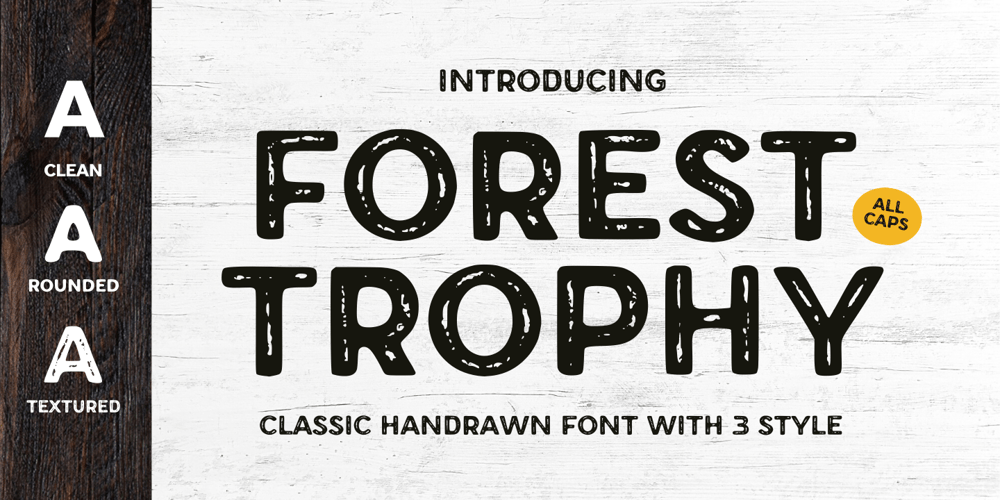
Forest Trophy Textured Font Family was designed by Muhamad Yusron Billah and published by Sronstudio. Forest Trophy Textured contains 3 styles and family package options. Forest Trophy – Classic Display Font comes with a rough texture that gives a natural and vintage impression, suitable for the needs of outdoor apparel, merchandise, event posters, movies, etcFeatures: Uppercase and lowercase letters Multilingual, numerals, and punctuation Available in 3 styles: Clean, Rounded & Textured Style Note: the design in the preview images is not includedIf you have any questions feel free to drop me a messageThank You!